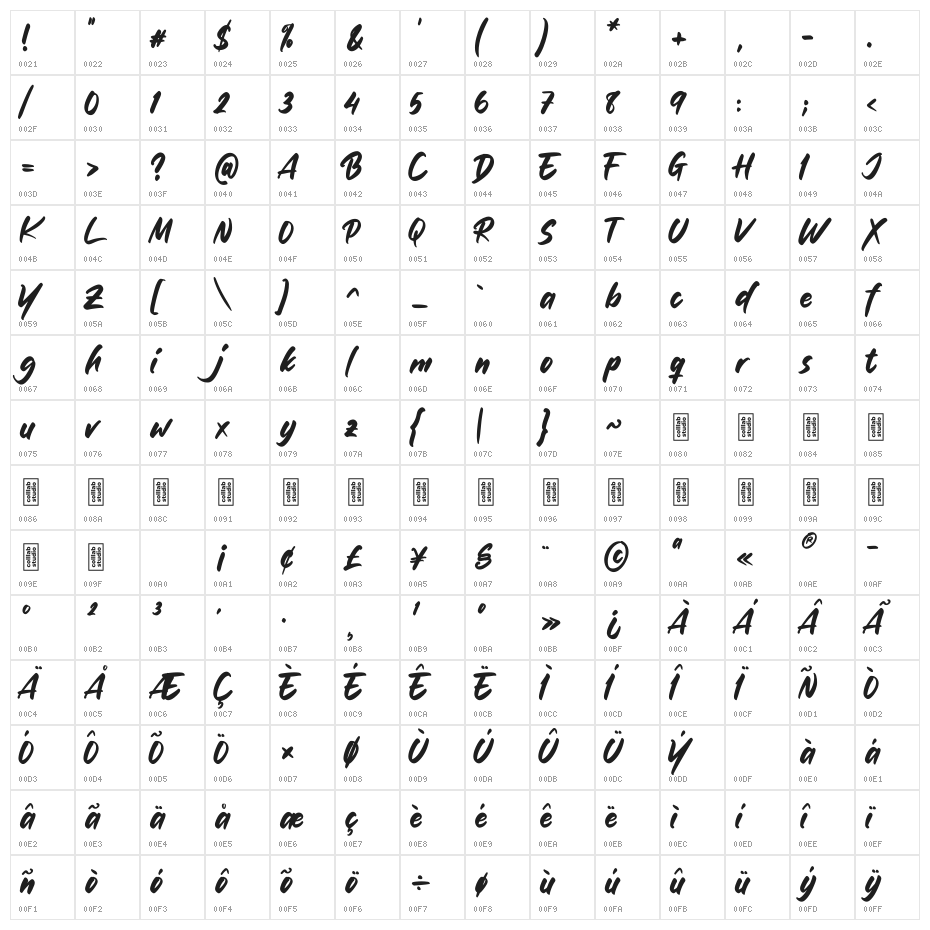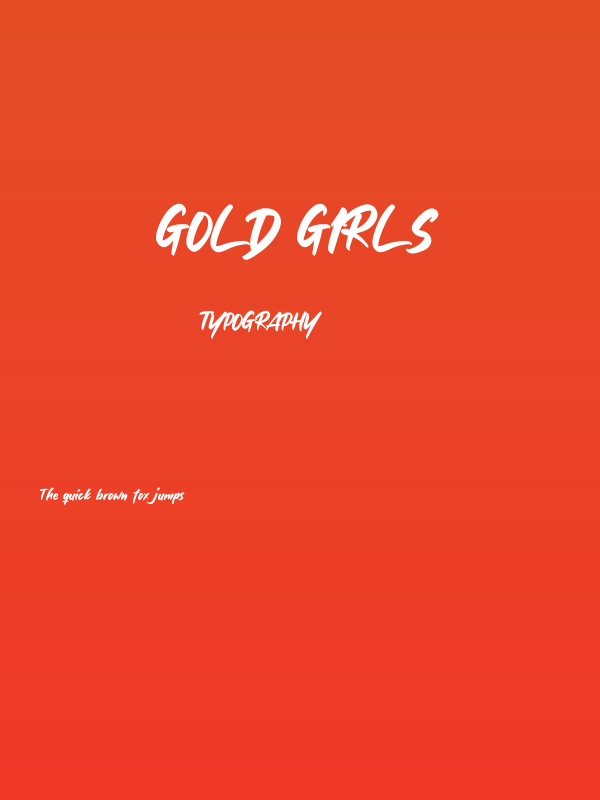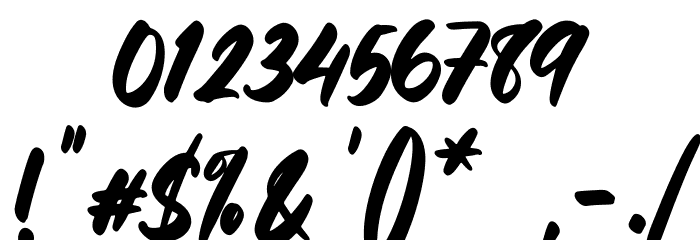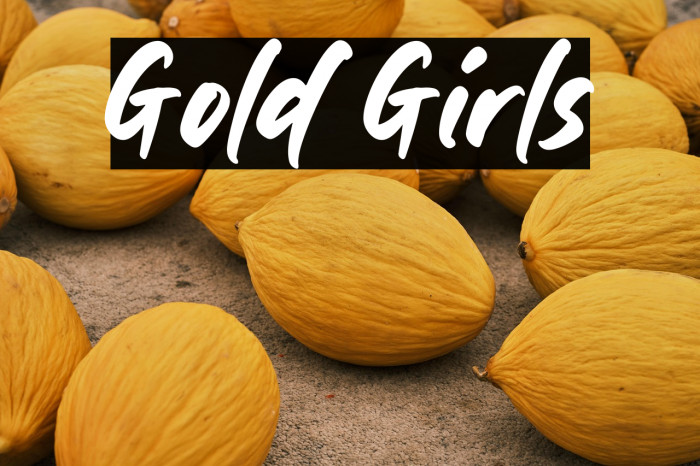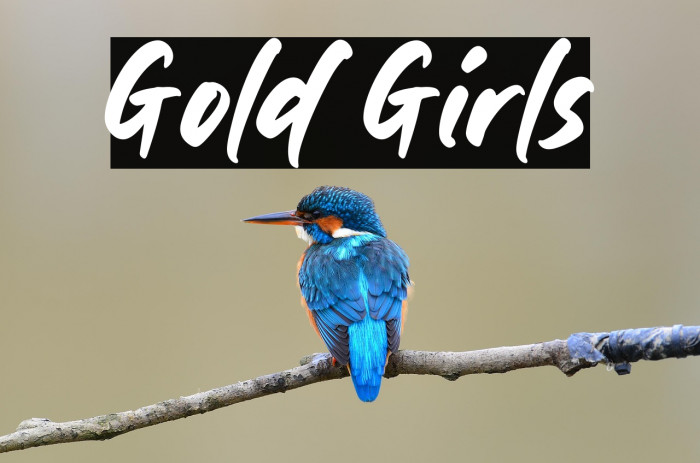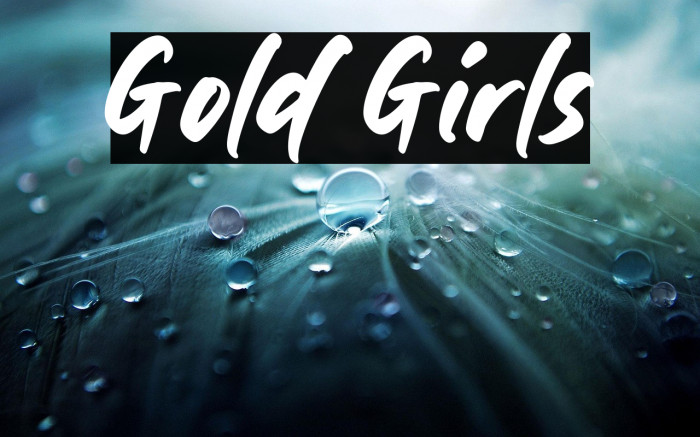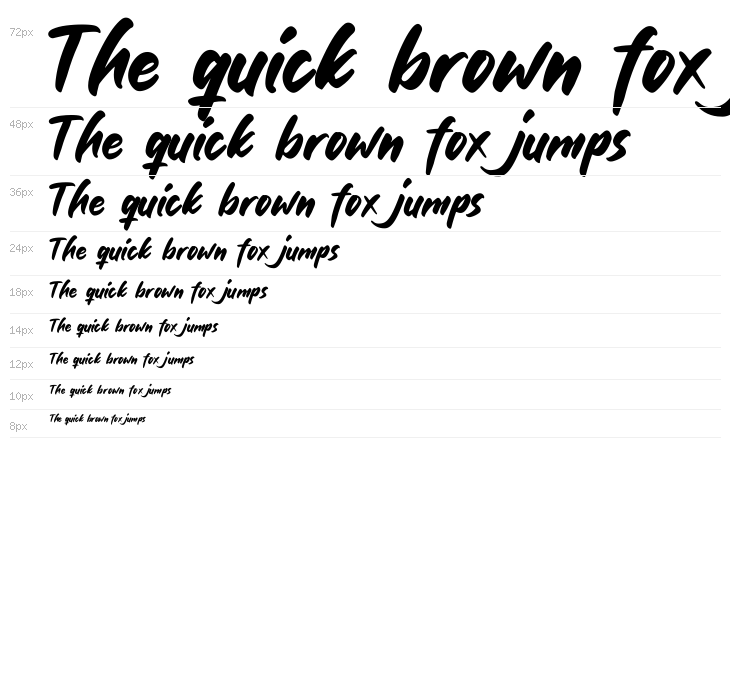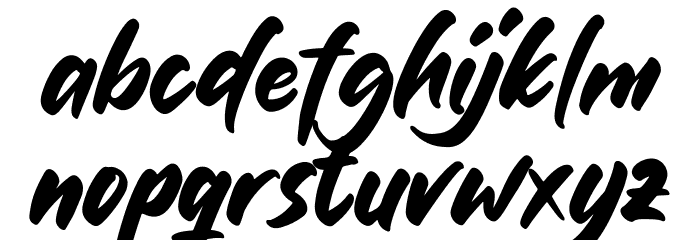
Gold Girls Font
Gold Girls Description
This font exudes a bold and energetic style with its brush-like strokes and dynamic flow. The characters are crafted with a sense of movement, giving them a lively and expressive appearance. The uppercase letters are robust and commanding, while the lowercase letters maintain a consistent fluidity. Numbers and special characters follow the same energetic design, making the font versatile for various applications. The overall look is modern and artistic, suitable for projects that require a touch of creativity and flair.
| Proposed Projects | Ideal for branding, posters, social media graphics, and creative headlines. |